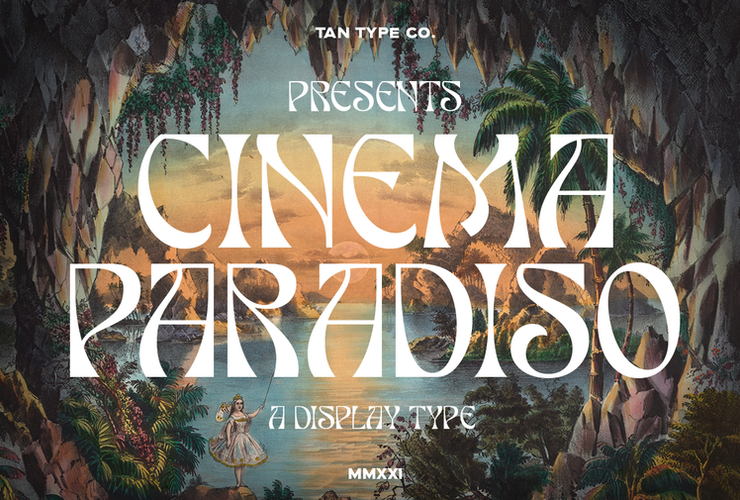
About TAN PARADISO
TAN – PARADISO is the sibling of TAN – KINDRED (https://xlyl.link/Qvprpk). Inspired by the organic flow of art nouveau, it is both quirky and elegant, ready to be used for any projects you have in mind.